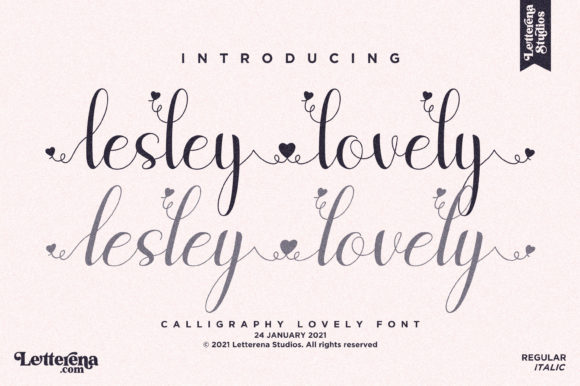
Prepare to be smitten by Lesley Lovely, the captivating script font that will paint your words with a touch of romance.
Step into a world of heartfelt expressions with this exquisite font designed to elevate your creative endeavors. Perfect for penning Valentine's Day letters that flutter with love or invitations that exude elegance, Lesley Lovely will transform your designs into enchanting masterpieces.
Immerse yourself in a realm of customization with this PUA-encoded gem, where every glyph and swash lies at your fingertips. Unleash your artistic flair and craft designs that dance with beauty and charm.
Whether you're a seasoned pro or a budding designer, Lesley Lovely will ignite your creativity and inspire you to weave tales that resonate with emotion. Embrace its enchanting allure and let your words blossom into works of art.